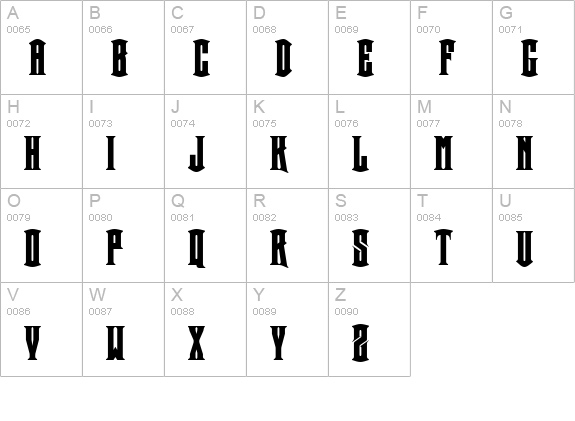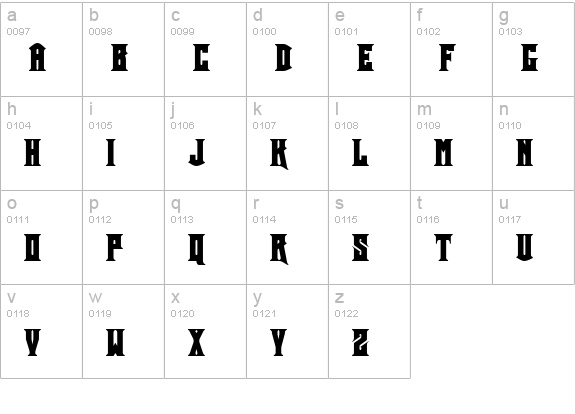
Crown Title Font Details
Crown Title font is an exquisite and elegant typeface that exudes regal charm and sophistication. With its intricate details and stylish design, this font is perfect for adding a touch of luxury to any project. The ornate serifs and graceful curves of Crown Title font make it ideal for creating stunning headlines, titles, and logos that demand attention. The best part? Crown Title font is completely free to download at FontsMarket.com, making it accessible to all designers and creatives looking to elevate their work with a touch of royalty. Add a touch of class to your designs with Crown Title font and make a statement that truly stands out.